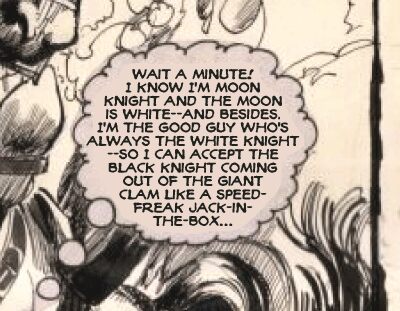
MoonKnight-Orzechowski
Moon Knight font by Empire of Dust is a bold display comic font that draws inspiration from retro comic lettering. It is rounded and organic, with some cute & creative characters which make it unique among its counterparts. Its appealing mysterious look adds a twist to any visual project that cares about style and aesthetics.
Tom Orzechowski / Dan Werneck